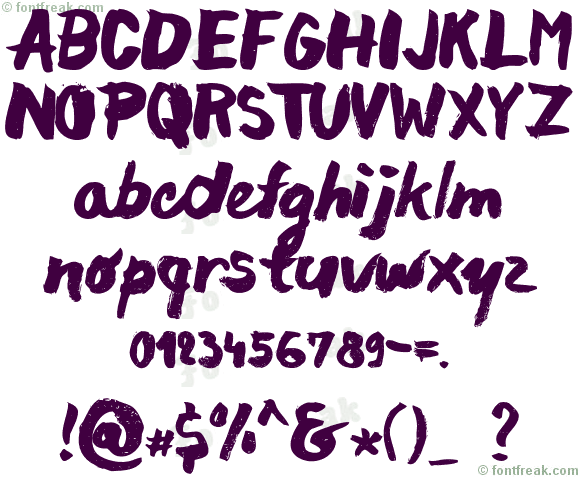
chocoleta
Chocoleta, designed by Peter Olexa, is a charming handwritten font that captures a sense of warmth and creativity. This display typeface features a unique, fluid style that emulates the graceful strokes of a brush pen, making it perfect for projects that require a personal touch. The strokes exhibit a moderate weight with soft, rounded edges, creating an inviting appearance that is both playful and elegant. The spacing between the letters is well-balanced, ensuring legibility while maintaining an artistic flair.
Chocoleta is particularly well-suited for a variety of use cases. It shines in wedding invitations, where its romantic and whimsical character can set the tone for the special day. The font is also ideal for restaurant menus, adding a touch of personality to the dining experience. Graphic designers will find it effective for crafting engaging posters and promotional materials, while content creators can utilize it for social media graphics that stand out in a crowded feed. Additionally, Chocoleta works wonderfully for branding projects, giving small businesses an approachable and unique identity.
What sets the Chocoleta font apart is its distinctive blend of elegance and playfulness. The hand-drawn quality adds authenticity to any design, making it an ideal choice for those looking to convey a personable and artistic vibe. Don’t miss the chance to elevate your projects with this delightful typeface—chocoleta font free download is available, inviting you to explore its unique charm.